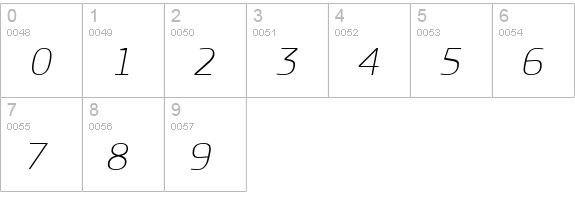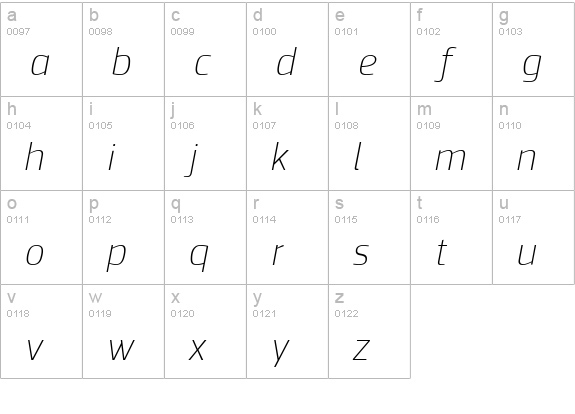
PFSquareSansPro-ThinItalic is a sleek and modern typeface that exudes elegance and sophistication. With its thin weight and subtle italic slant, this font is perfect for adding a touch of class to any design project. Whether used for headlines, branding, or body text, PFSquareSansPro-ThinItalic is sure to make a statement. The best part? This stunning font is available for free download at FontsMarket.com. Now you can elevate your designs without breaking the bank. Don't miss out on the opportunity to enhance your projects with the timeless beauty of PFSquareSansPro-ThinItalic. Download it today and let your creativity shine!